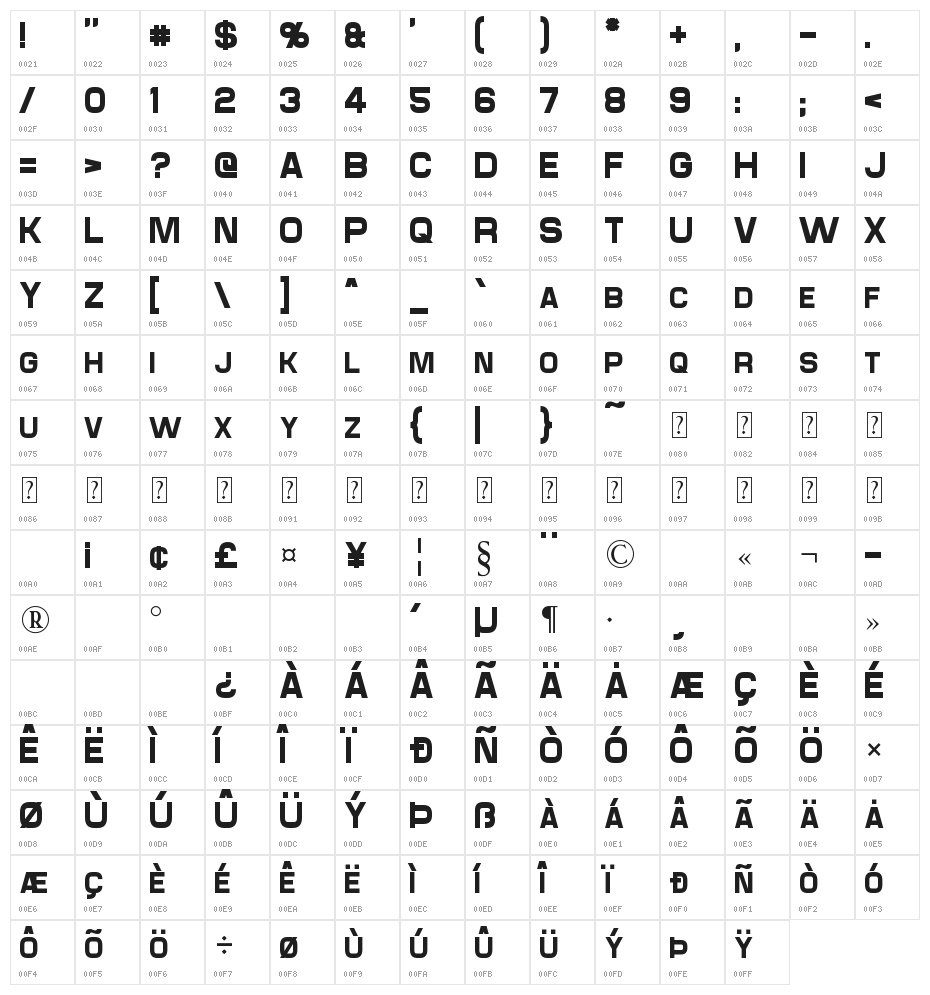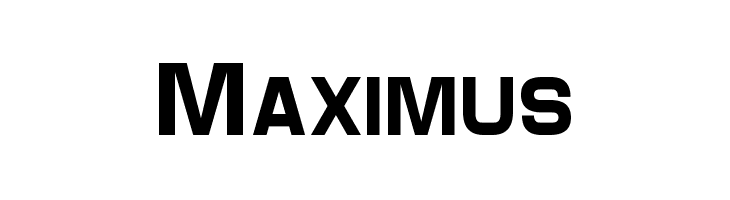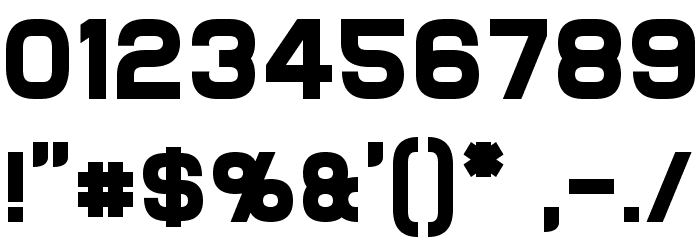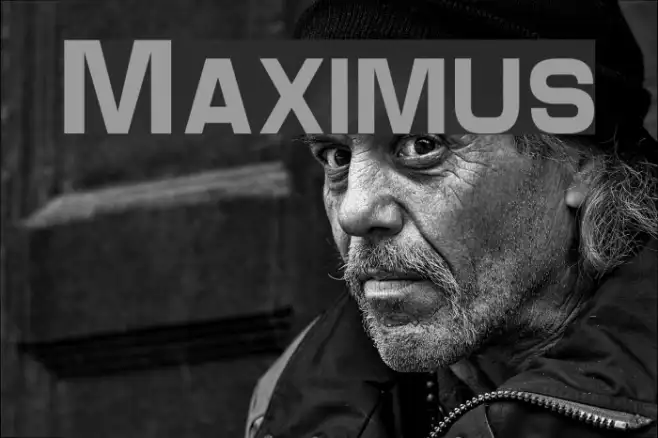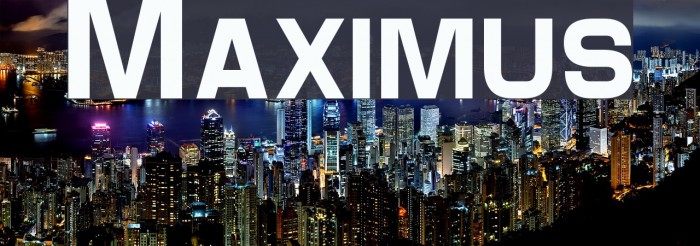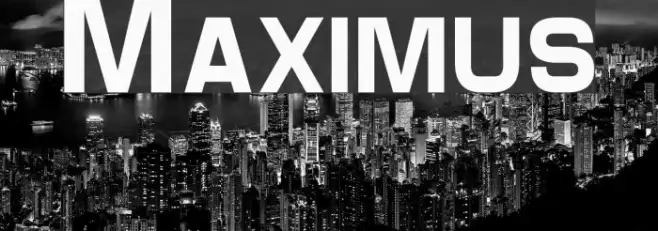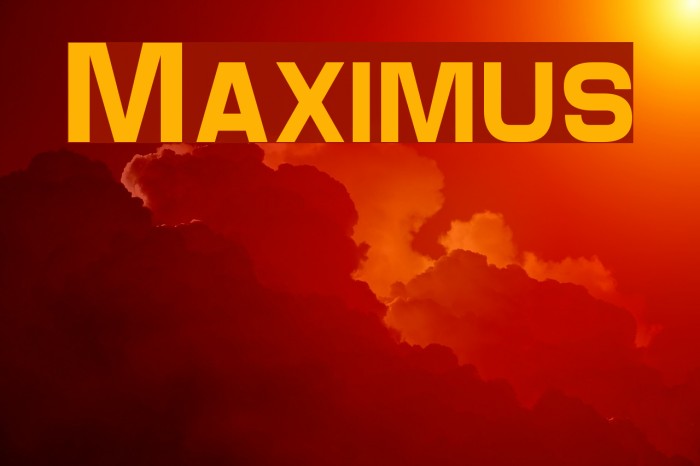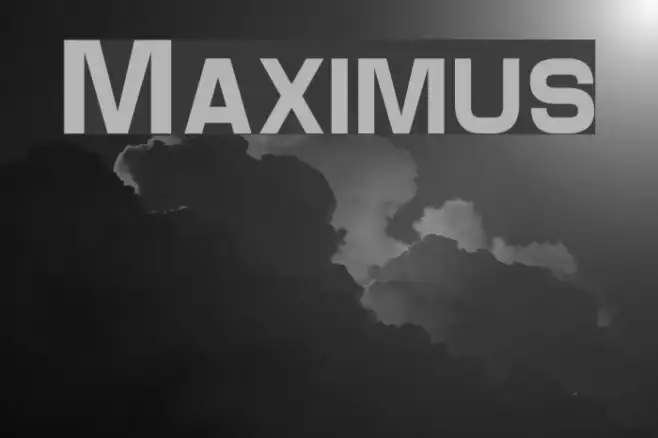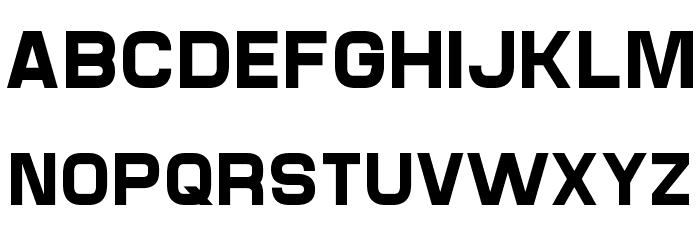
Maximus Font
Maximus Description
This font features a bold, geometric sans-serif style with a strong presence. The characters are uniform in width, providing a clean and modern appearance. The uppercase letters are particularly striking, with a consistent stroke weight that enhances readability. The numerals and special characters maintain the same boldness, ensuring a cohesive look across all text elements. The font's design is straightforward yet impactful, making it suitable for a variety of applications where clarity and emphasis are desired.
| Proposed Projects | Ideal for branding, headlines, posters, and signage where a strong visual impact is needed. |